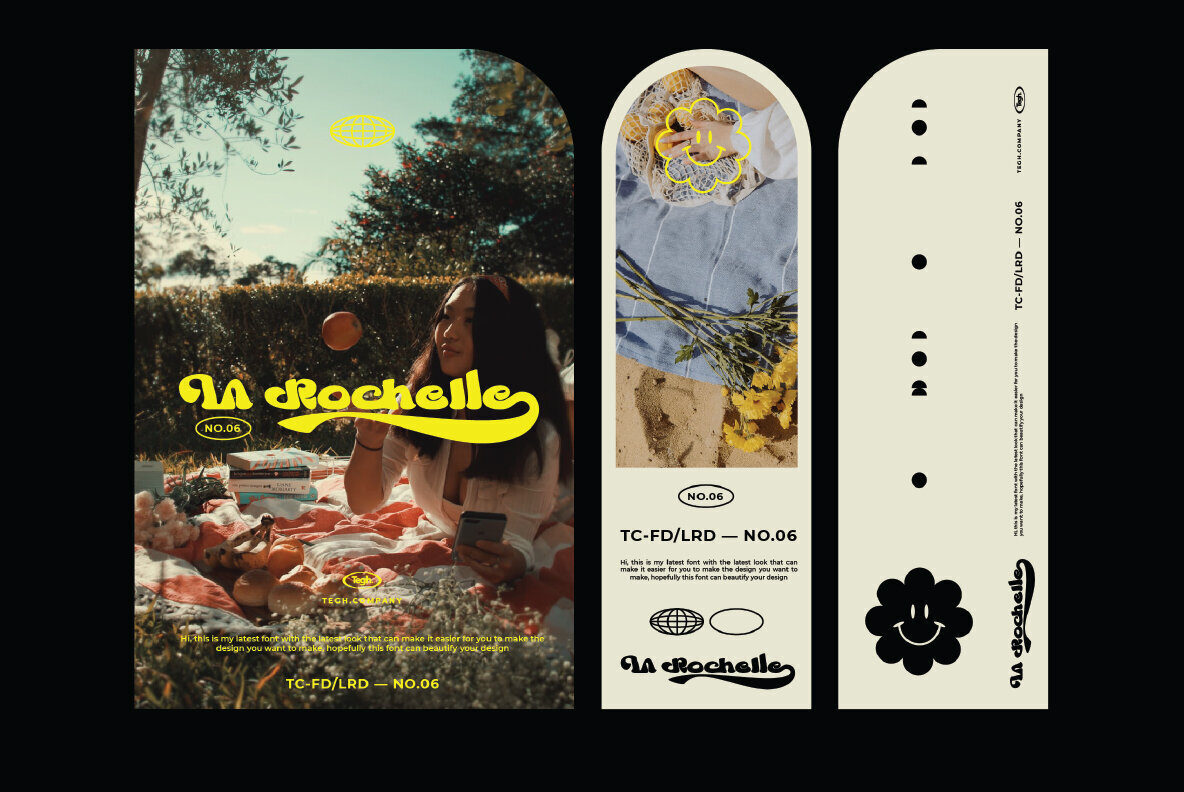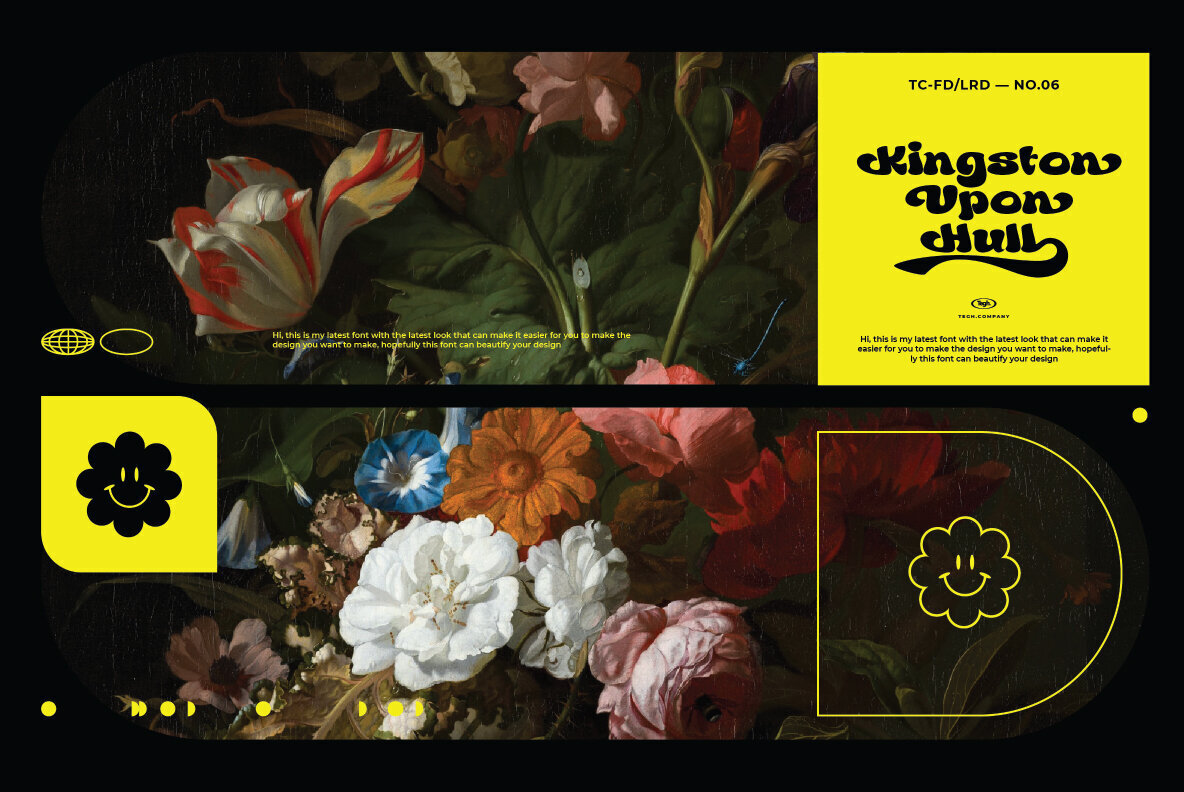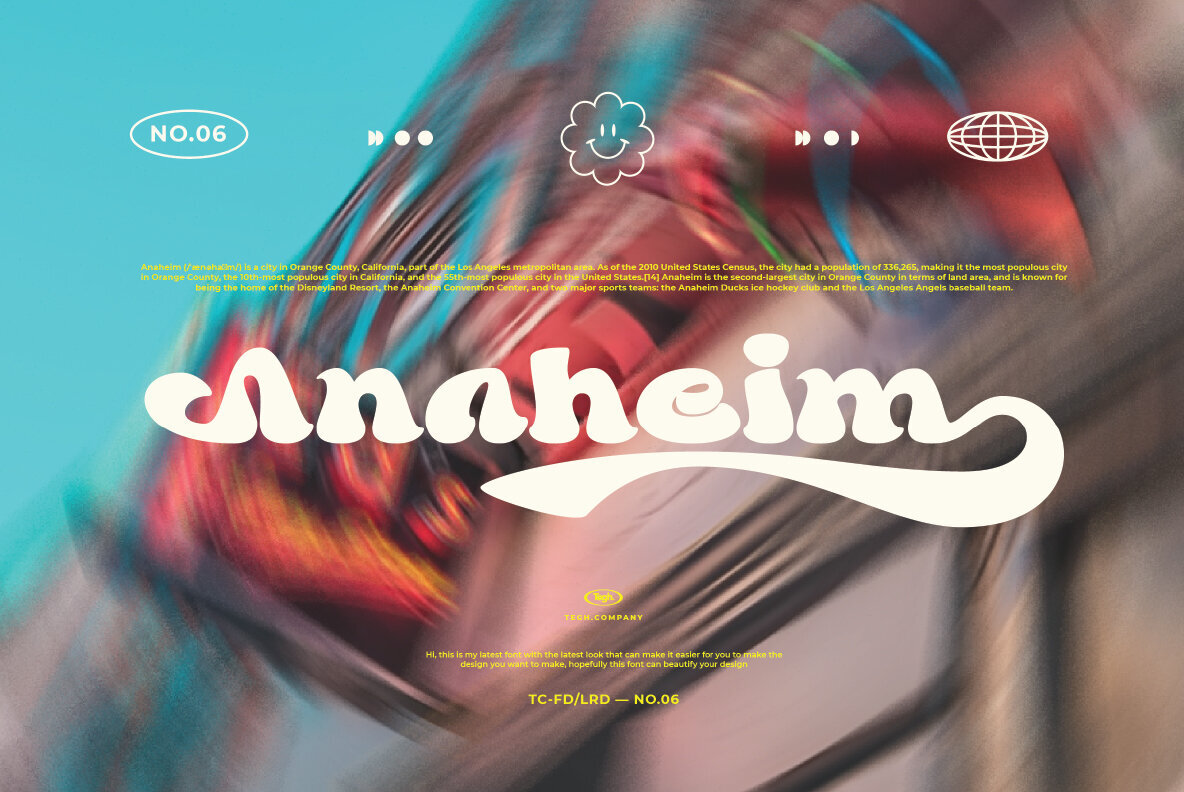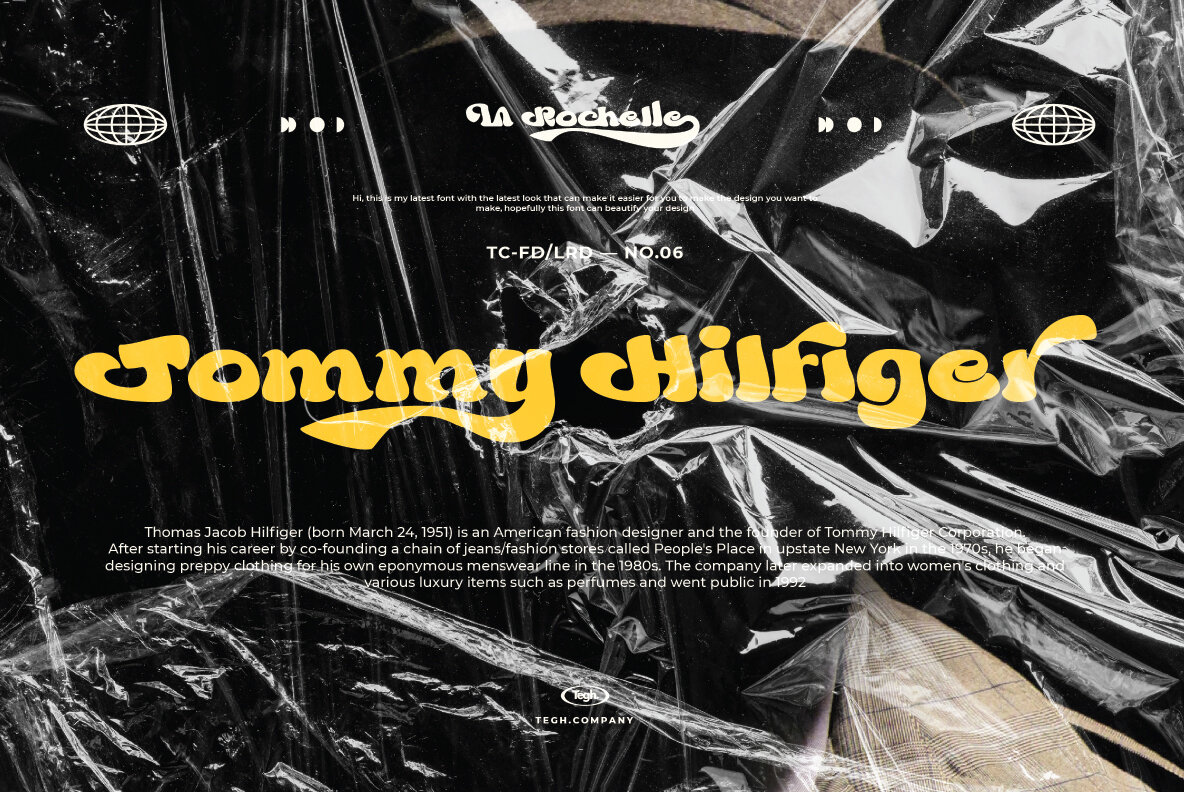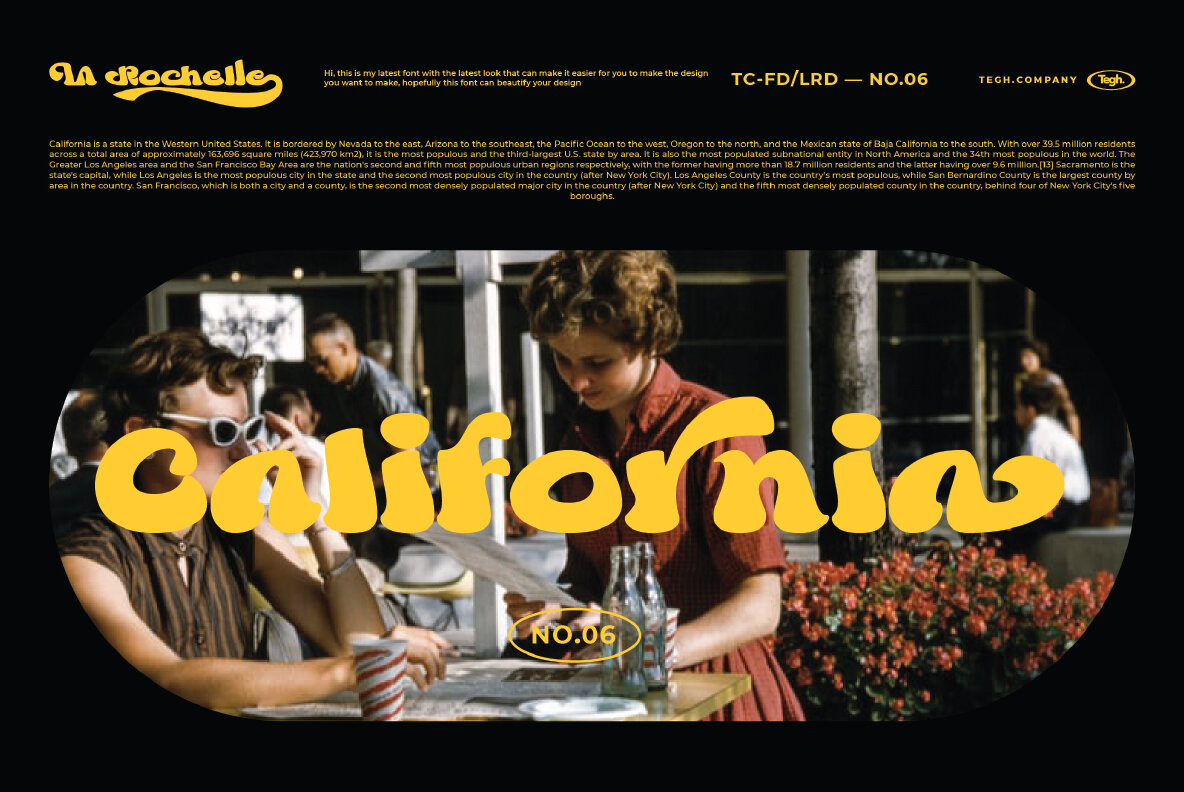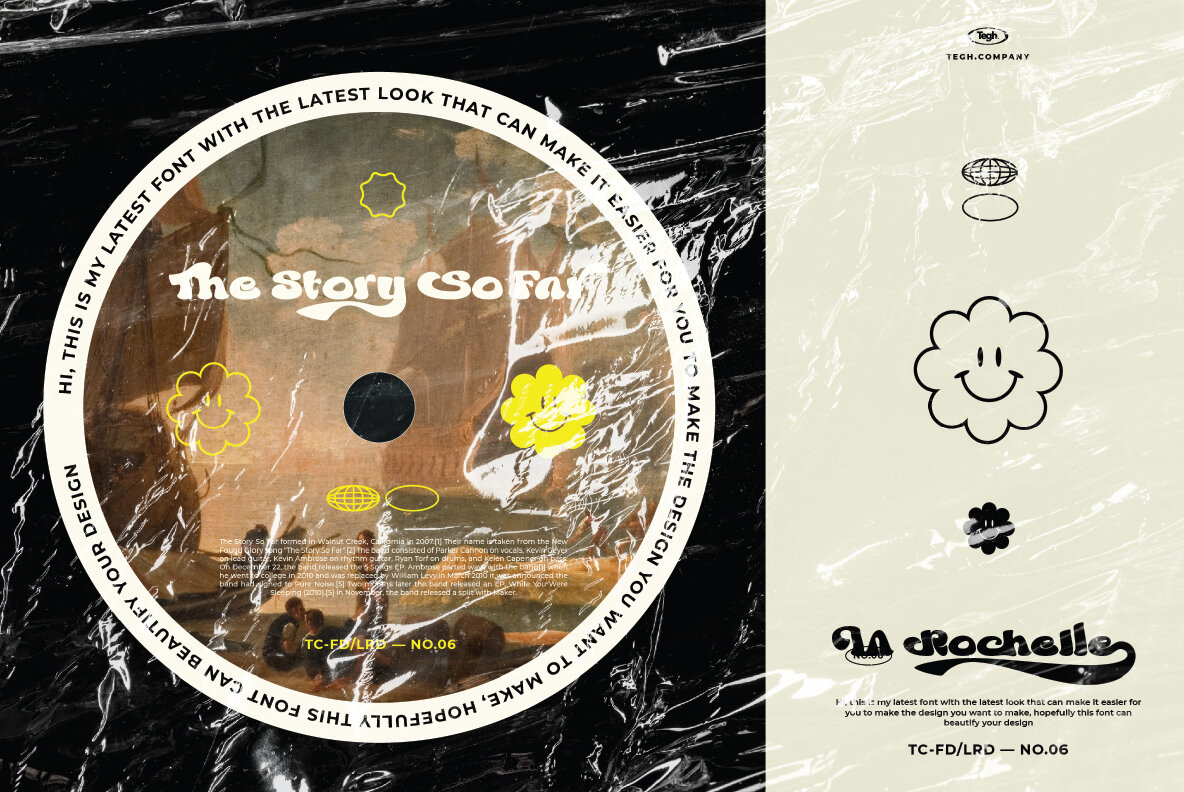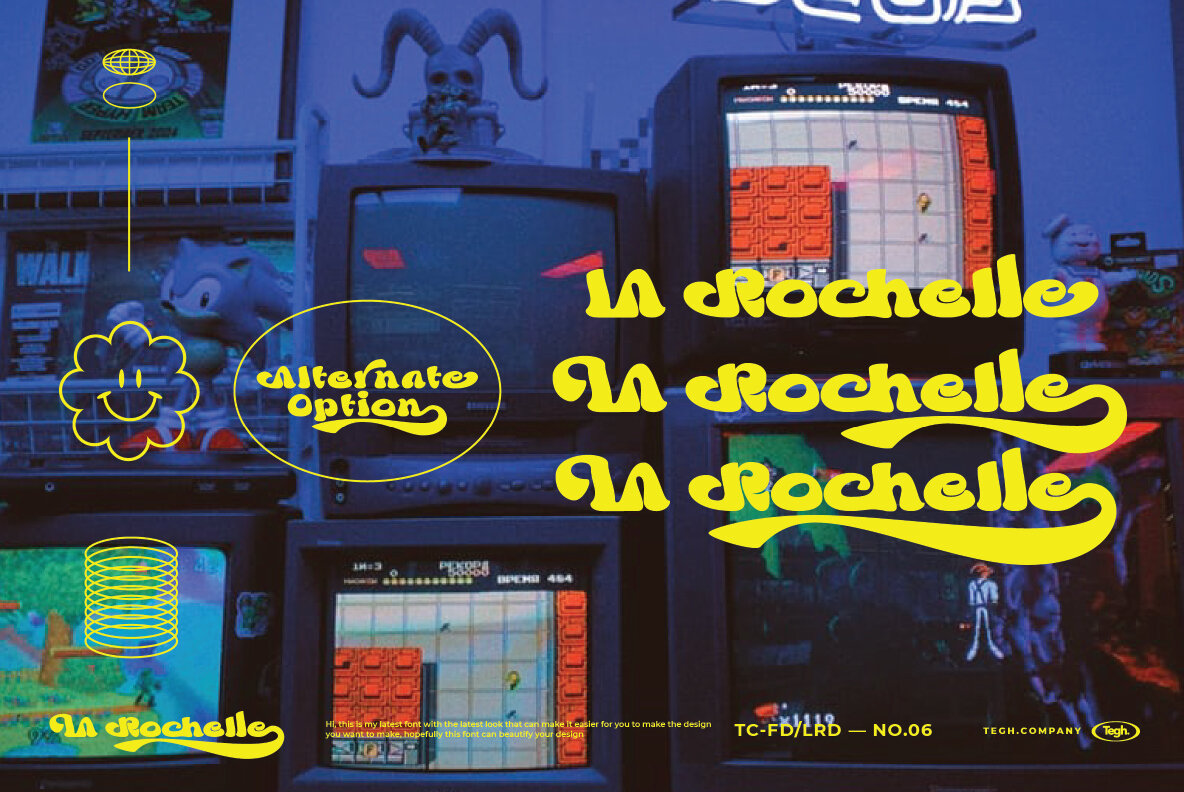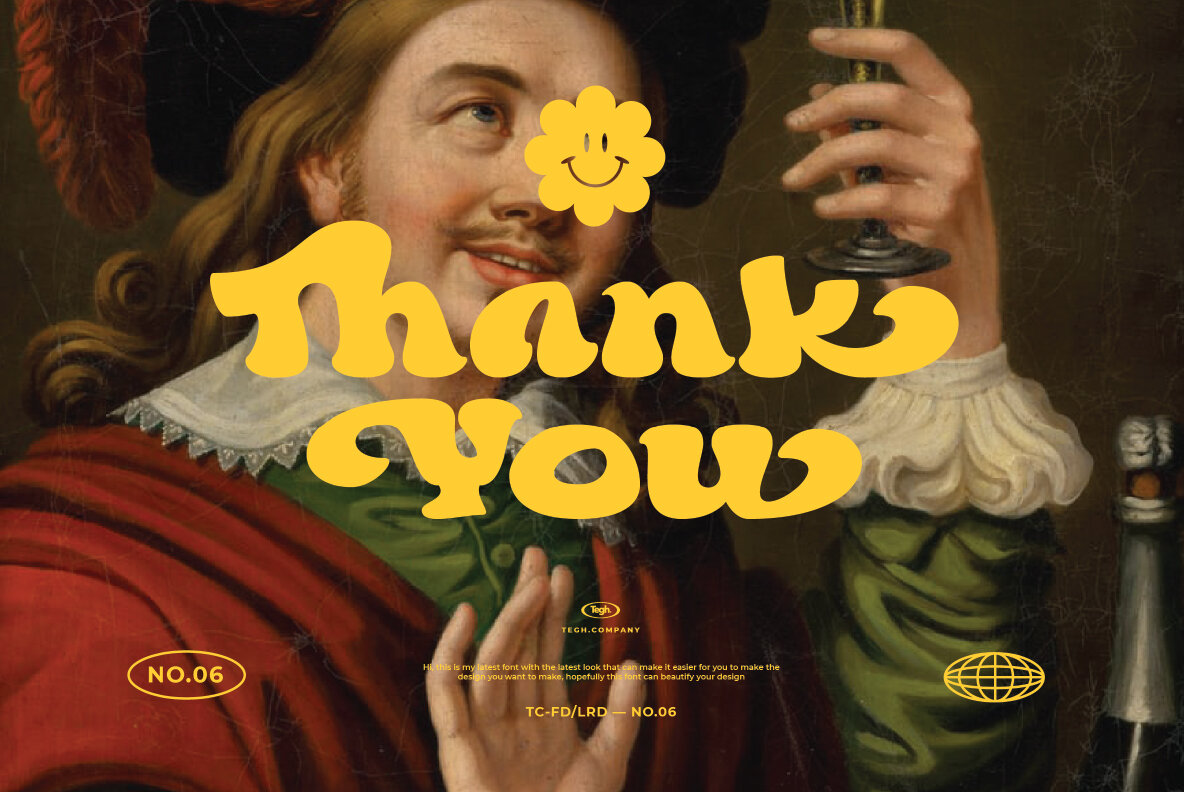
La Rochelle 1
Tegh Co is a bold and experimental type foundry, pushing the boundaries of typography with high-impact display fonts. Their font collection blends retro influences, futuristic aesthetics, and unconventional letterforms, creating typefaces that demand attention. From playful and bubbly script fonts to heavy, in...